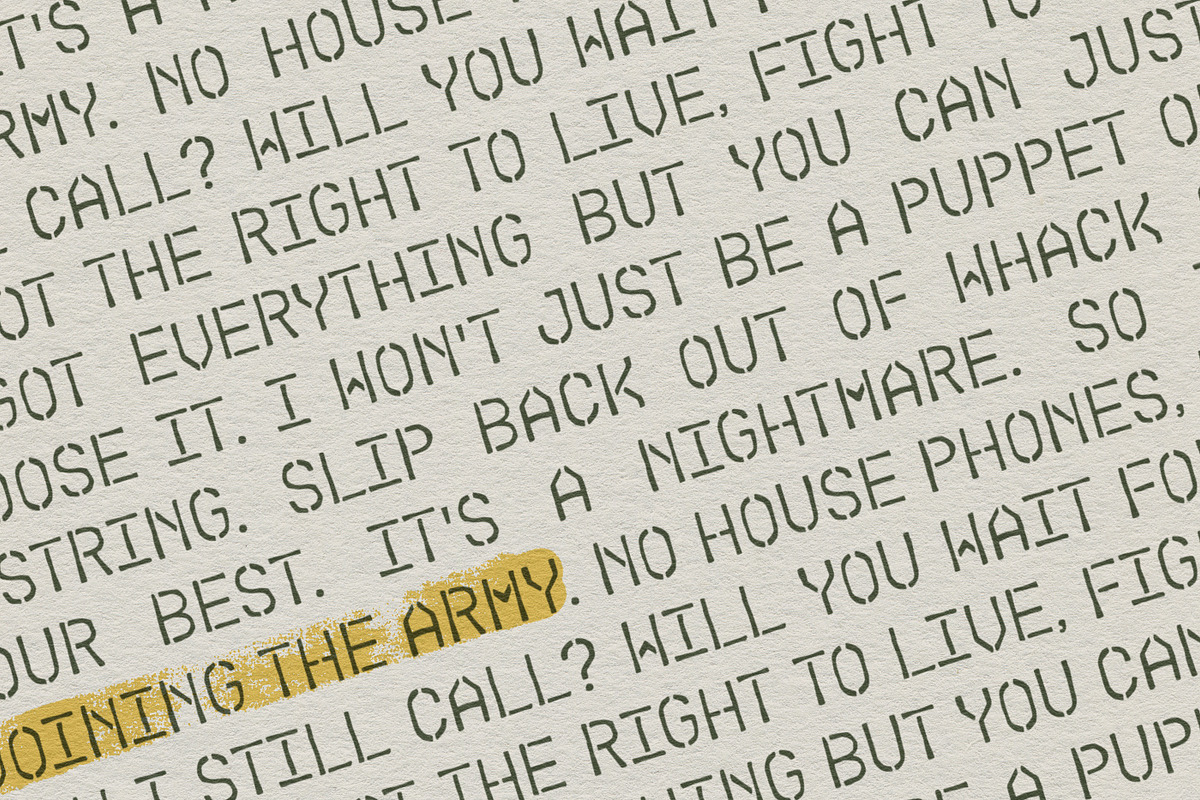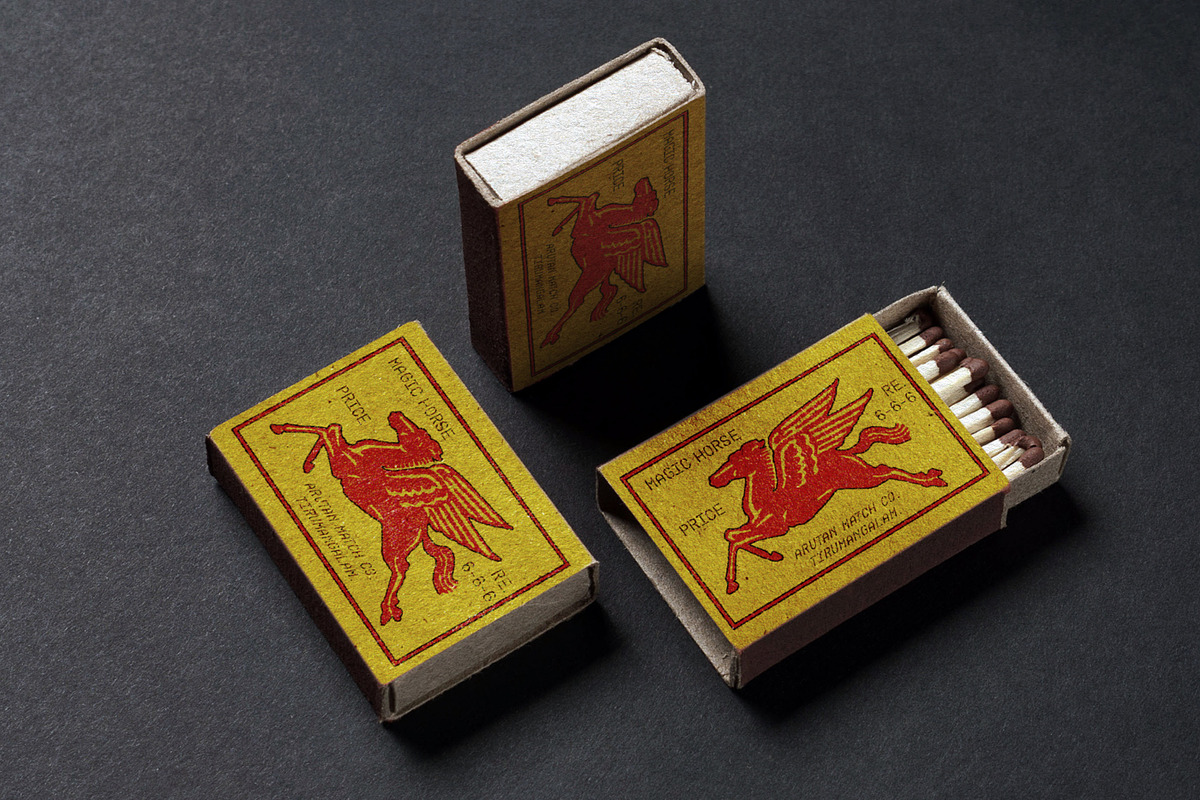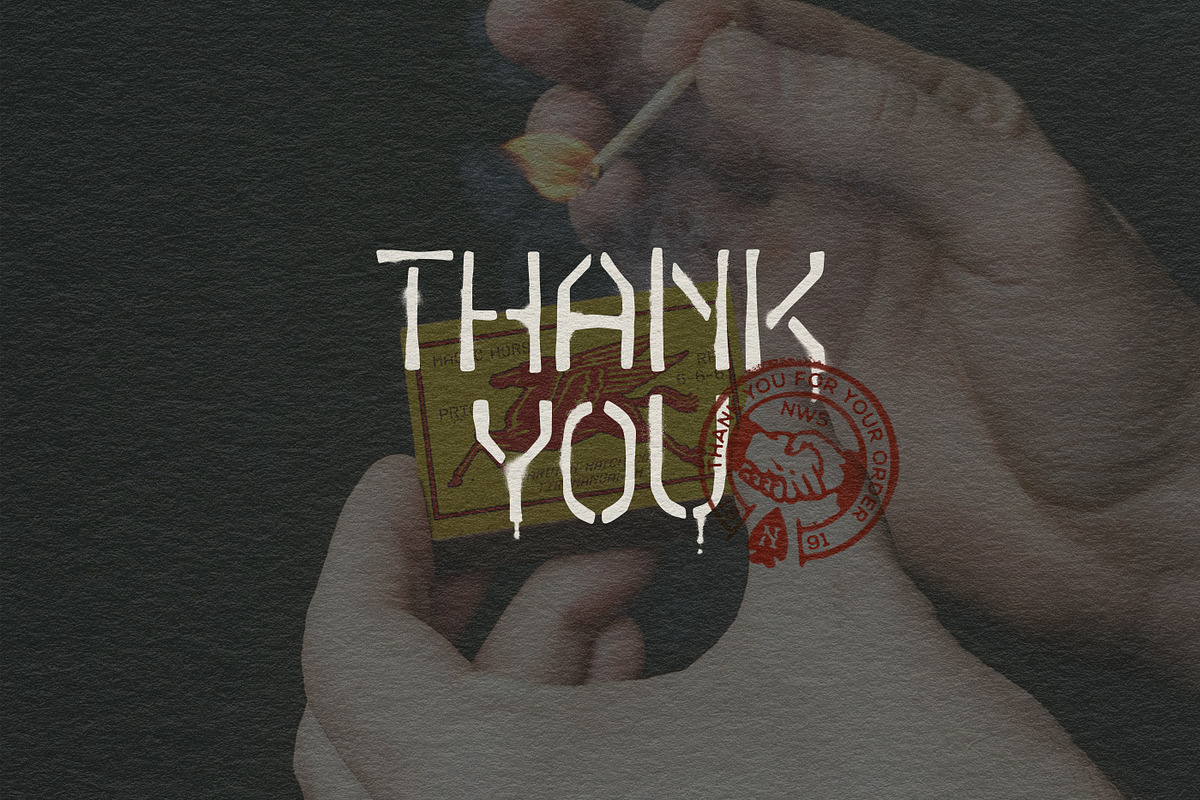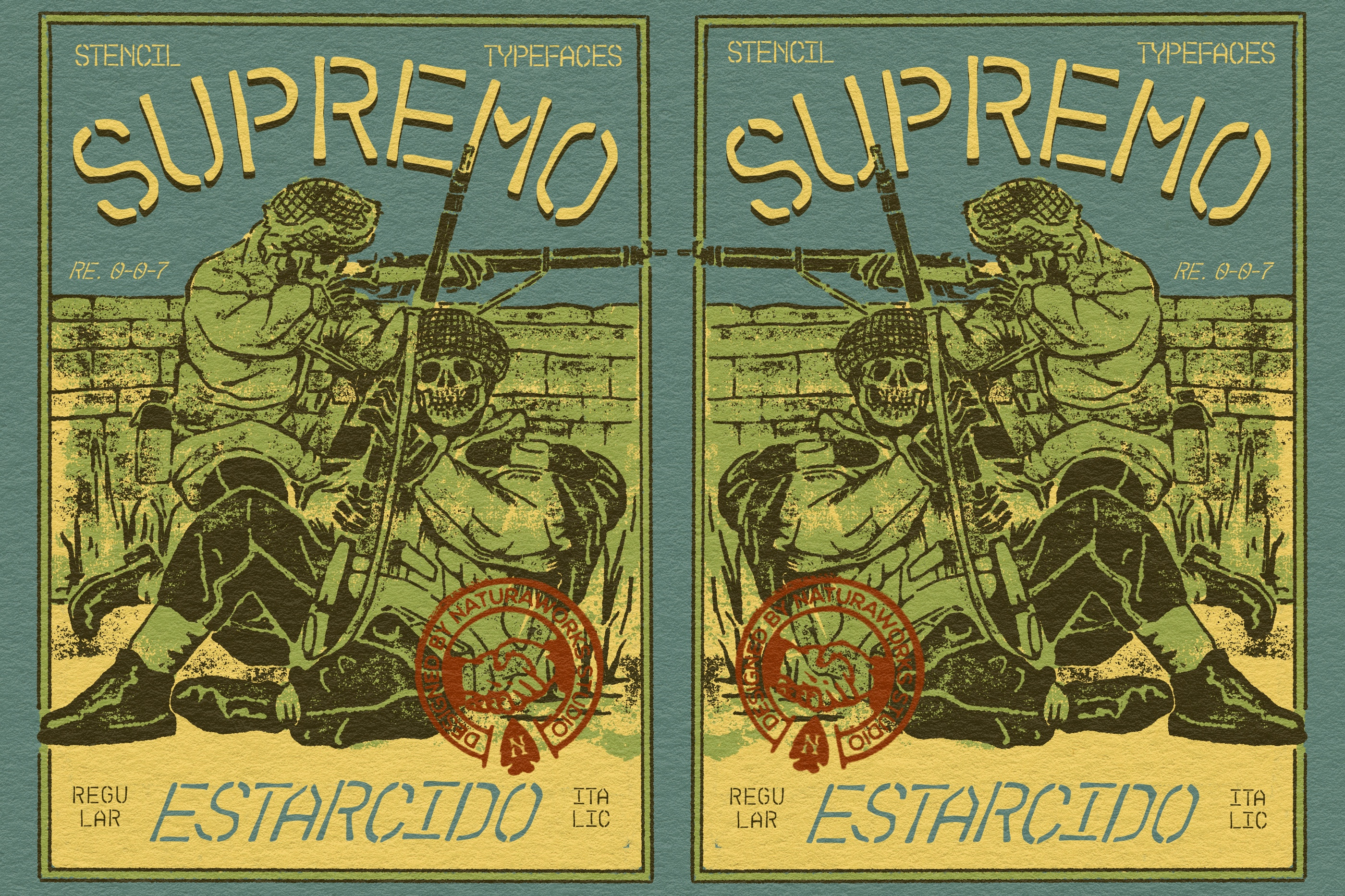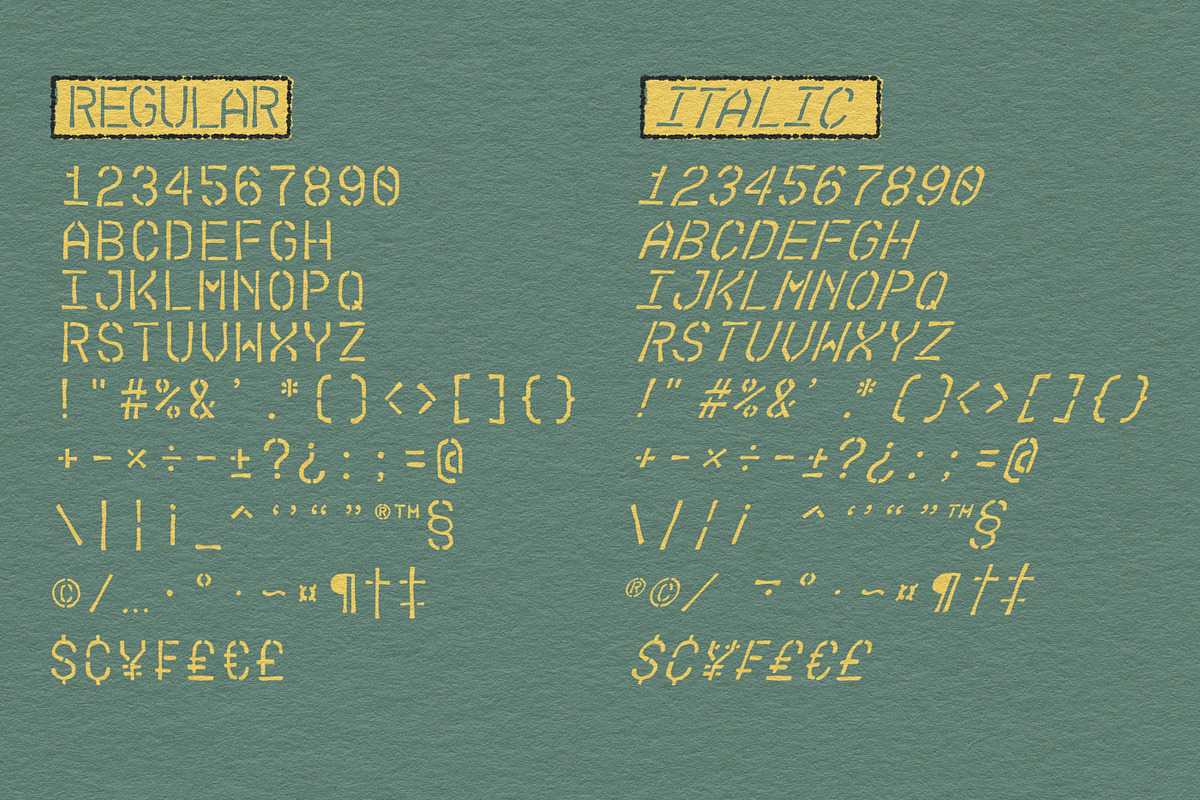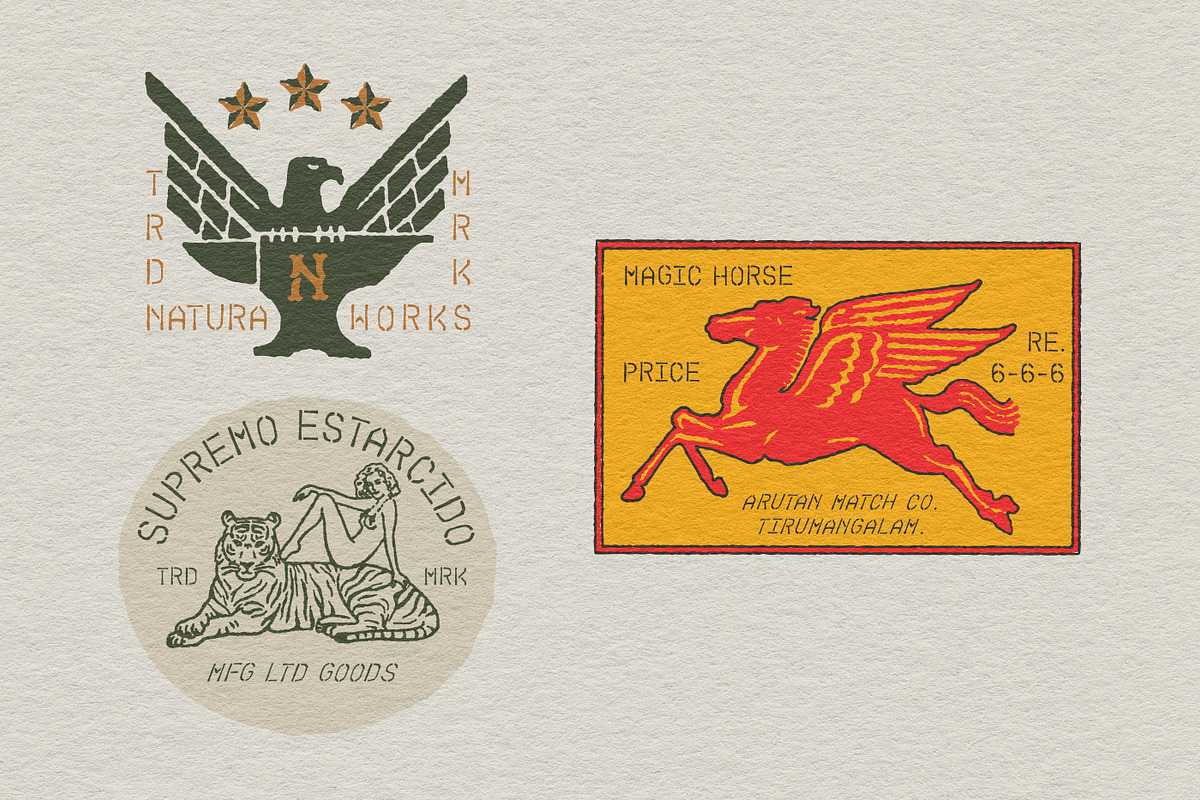
SUPREMO ESTARCIDO TYPEFACE
INTRODUCING
SUPREMO ESTARCIDO TYPEFACE. Is a font inspired by American vintage fonts. Very fit and easy to make your awesome product, create label design, logo design, badge design, t-shirt design, posters, greeting cards, letterheads or anything looks like vintage and hand drawn vibes. Also you will get some random illustrations and some editable badge designs. Hope you like it!